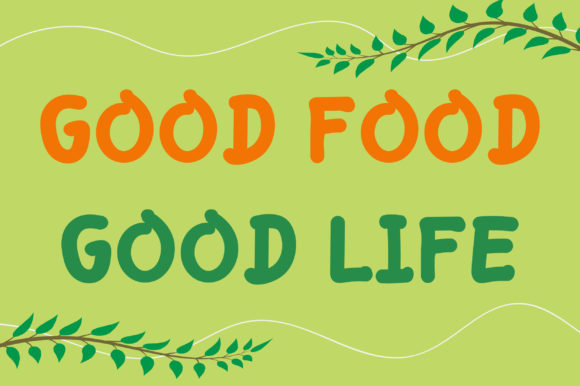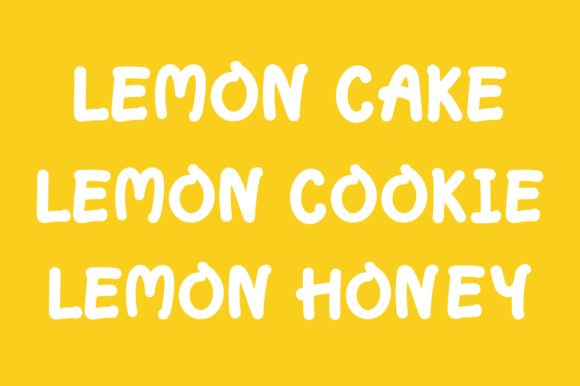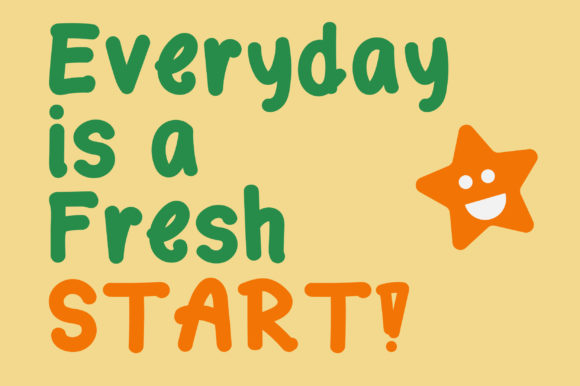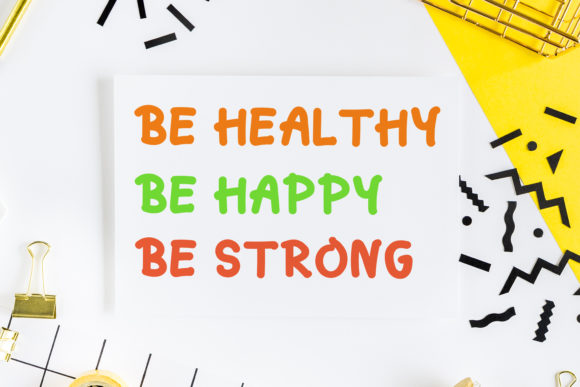
Introduction to Lemon Toffy Font
Have you ever stared at a blank page, feeling the pressure of creating the perfect design, only to have it all come together with a single, quirky font? For designers, this moment is pure magic. And for those who have discovered it, the Lemon Toffy Font is about to become their new best friend.
This adorable handwritten font is more than just a design resource – it’s a game-changer. With its high-quality lines and transparent background, it’s perfect for adding a touch of whimsy to your creative project. Whether you’re working on branding, headings, or wedding designs, the Lemon Toffy Font is sure to elevate your work to the next level.
Key Features of Lemon Toffy Font
- Unique, hand-drawn design with a playful and whimsical feel, making it perfect for creative projects.
- High-quality, transparent background design, ideal for use on dark or textured backgrounds.
- Perfect for use in various design projects, including branding, typography, and graphic design, as a design resource.
Honest Review: Lemon Toffy Font
I recently stumbled upon the Lemon Toffy Font, a free download that’s been making waves in the design community. As a designer, I was eager to put it to the test and see if it lives up to the hype.
What works well: ✨ The font is incredibly versatile, making it perfect for a wide range of creative projects, from blog posts to social media graphics. The high-quality design ensures that it looks great on both light and dark backgrounds. Plus, the transparent background option is a game-changer for designers who need to overlay text on images.
- High-quality design that looks great on various backgrounds
- Transparent background option for seamless overlay
- Versatile and suitable for various creative projects
However, I did encounter a few limitations: ⚠️ The font library is relatively small, which may limit its use for more complex design projects. Additionally, some users may find the font’s unique style to be too quirky for certain designs.
Overall, I’m impressed with the Lemon Toffy Font’s potential, but I do wish it had a larger library of styles to choose from. As a free design resource, it’s definitely worth checking out, but I wouldn’t rely on it for my most complex projects just yet.
The Lemon Toffy Font is a high-quality, free download design resource that can elevate your creative project. This font features a transparent background, making it versatile for use in various design applications.
Tips for Getting the Most Out of Lemon Toffy Font
Use the Lemon Toffy Font in combination with other design elements, such as graphics and images, to create a visually appealing design. Experiment with different font sizes, colors, and styles to find the perfect combination for your project.
The Lemon Toffy Font is suitable for a variety of design projects, including business cards, brochures, and social media graphics. Its transparent background makes it easy to use in conjunction with other design elements.